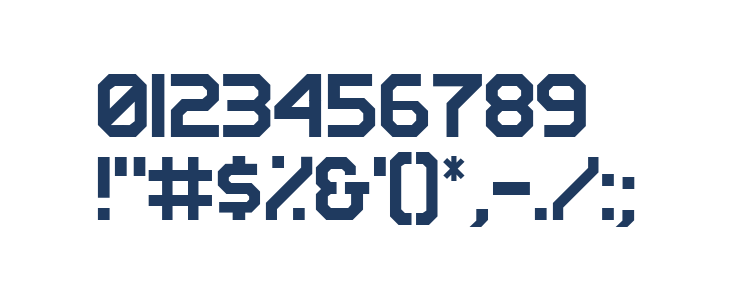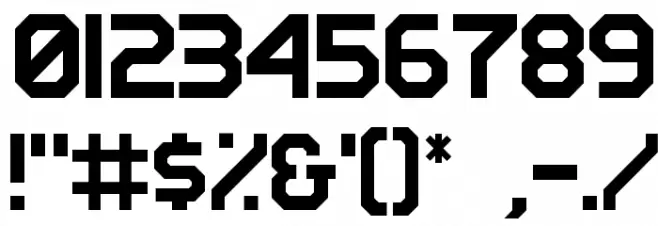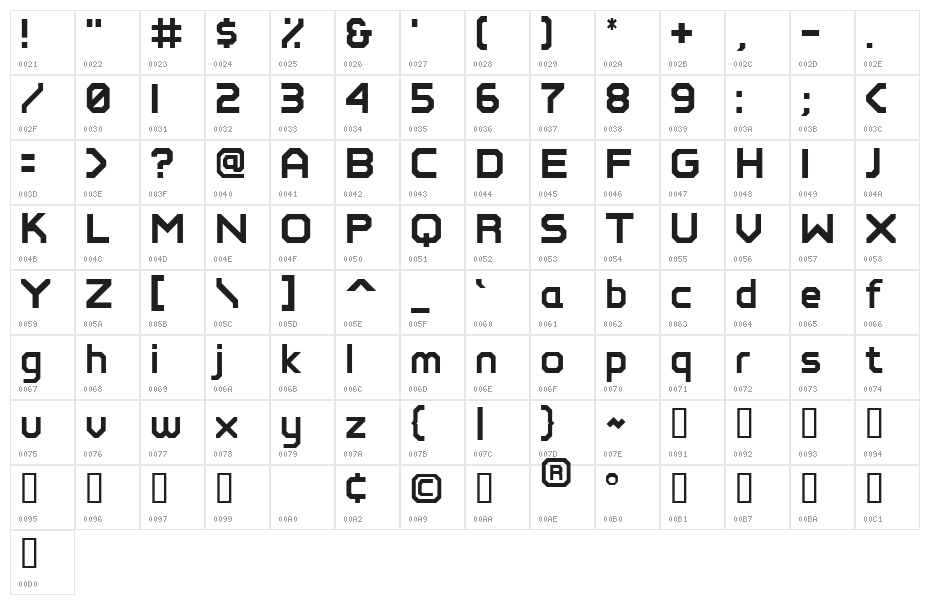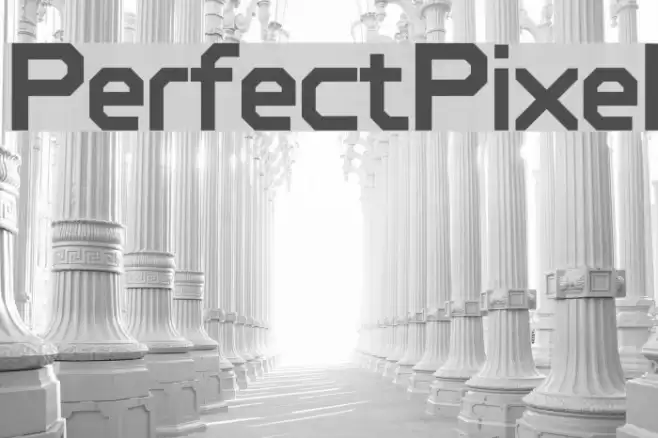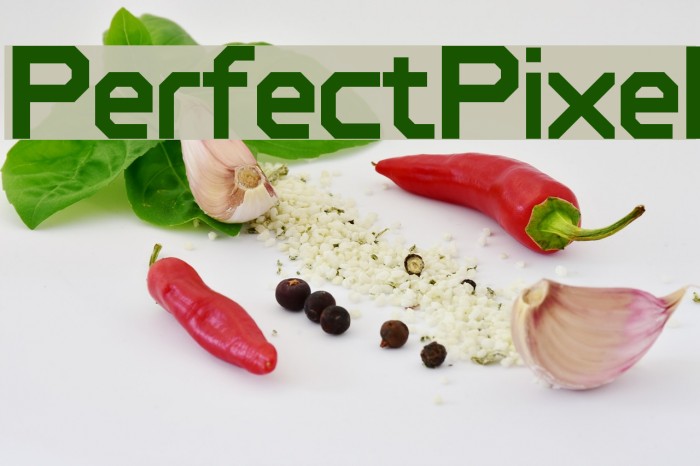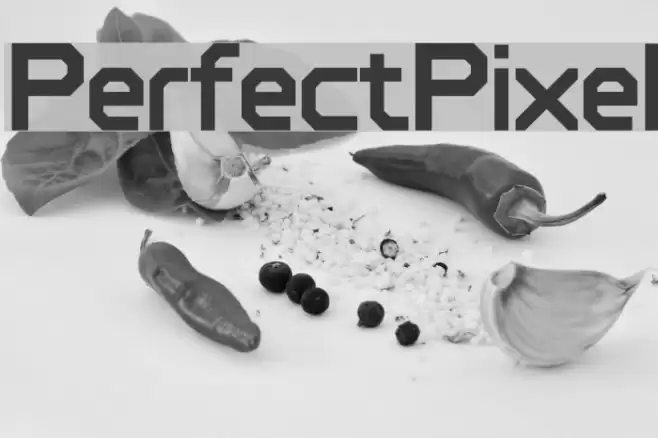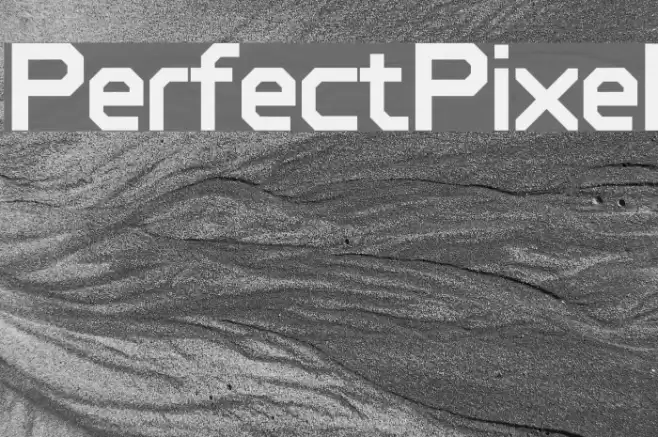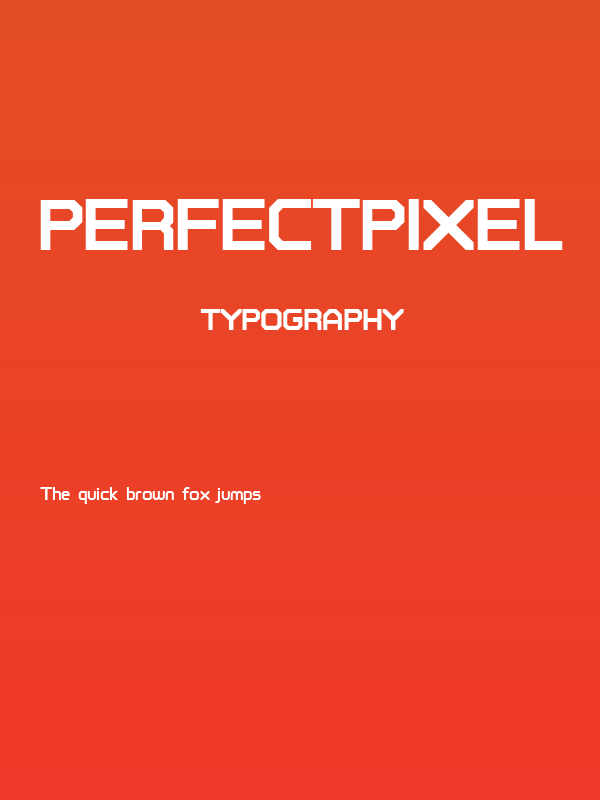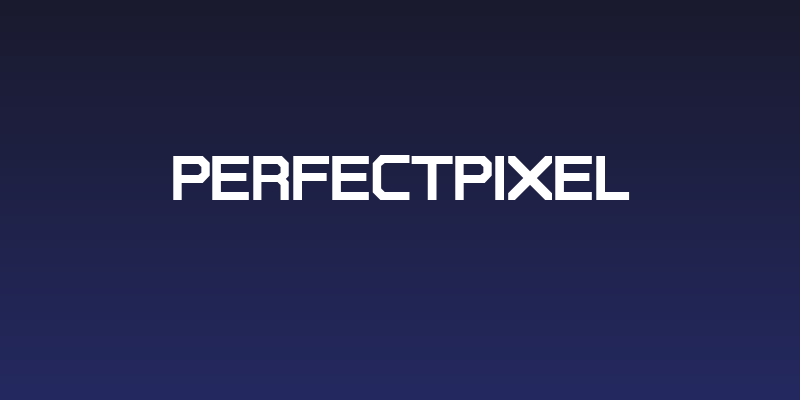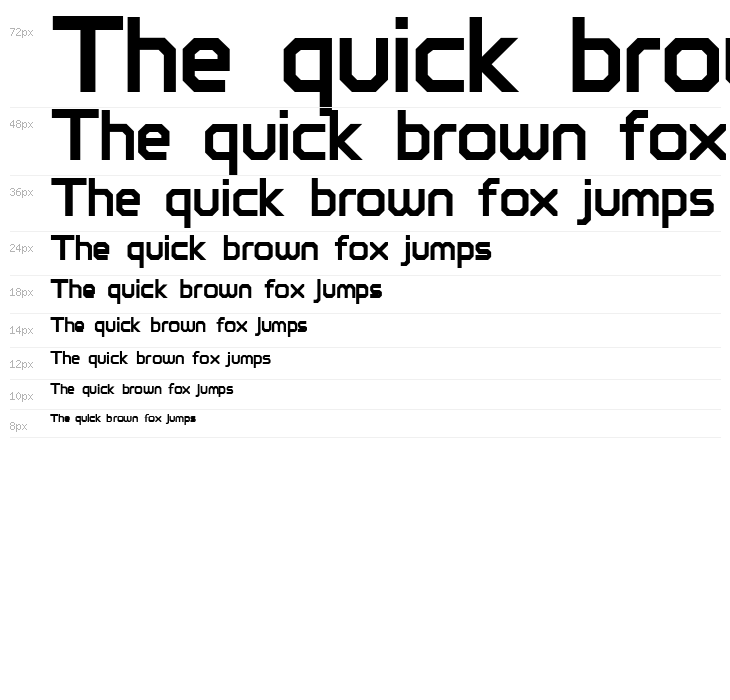
PerfectPixel Font
PerfectPixel Description
This font features a bold, geometric design with a modern and futuristic aesthetic. The characters are constructed with sharp angles and straight lines, giving them a digital, pixelated appearance. The uppercase and lowercase letters maintain a consistent style, with a uniform height and width that enhances readability. Numbers and special characters follow the same design principles, ensuring a cohesive look across all elements. The font's structure is clean and precise, making it suitable for digital interfaces and tech-related projects.
| Proposed Projects | Ideal for digital interfaces, tech branding, video game design, and futuristic-themed projects. |